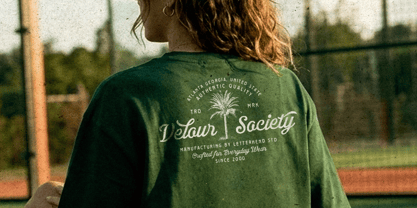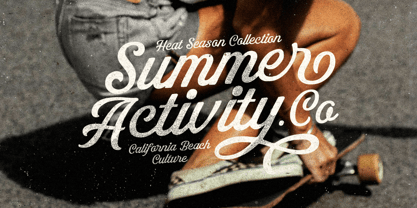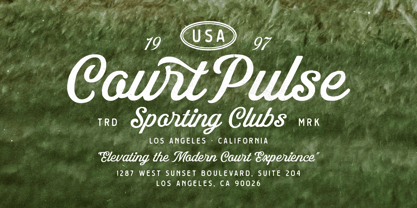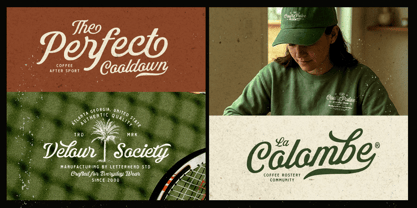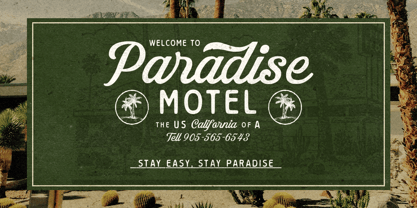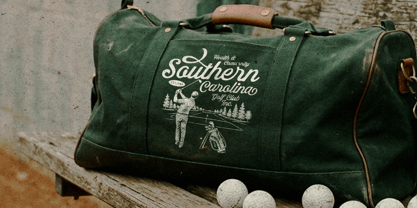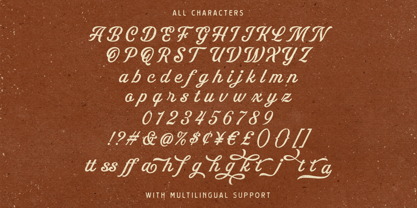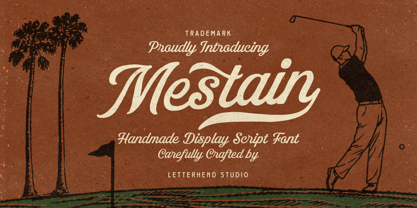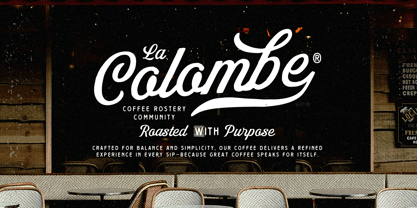
Mestain
by Letterhend
The Mestain Font Family was designed by Hendry Juanda and published by Letterhend. Mestain contains 1 styles. More about this family
Mestain is a handmade display script font crafted with smooth vintage curves, bold flowing swashes, and a warm retro spirit that instantly brings old-school charm into your designs. Inspired by classic signage, golf club aesthetics, and timeless lettering styles, Mestain comes with carefully drawn details that feel relaxed yet stylish at the same time.
Features :
• Uppercase & lowercase
• Numbers and punctuation
• Alternates & Ligatures
• Multilingual Support